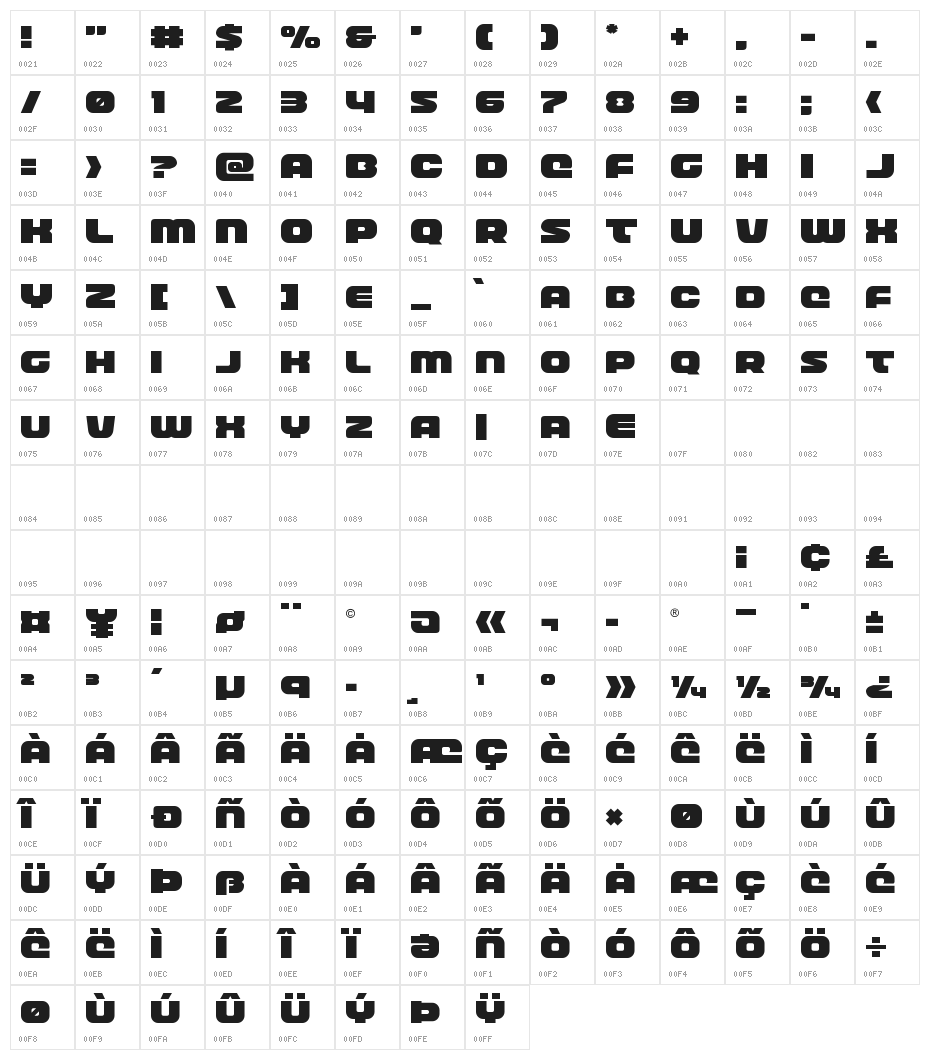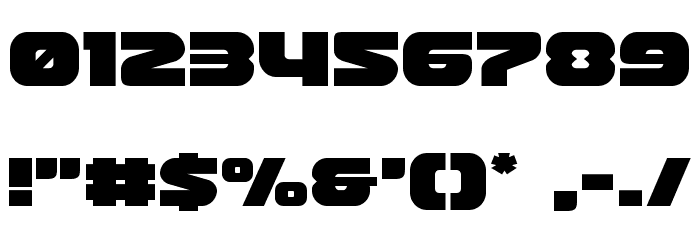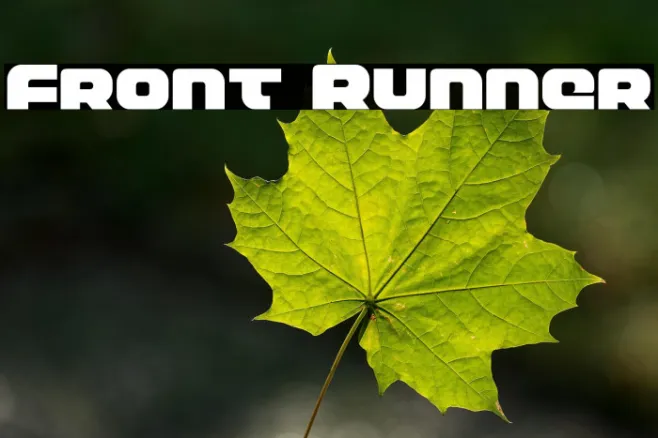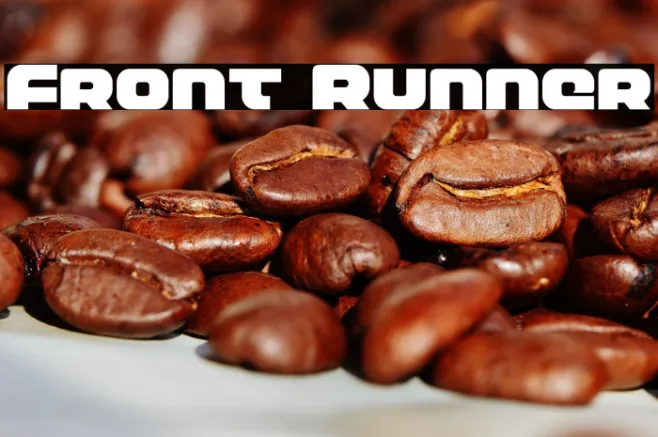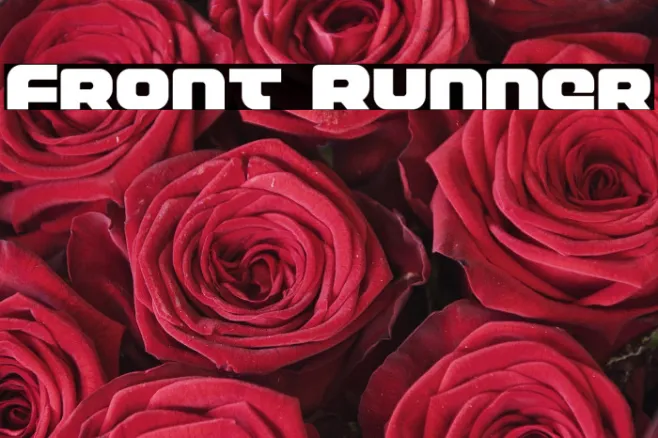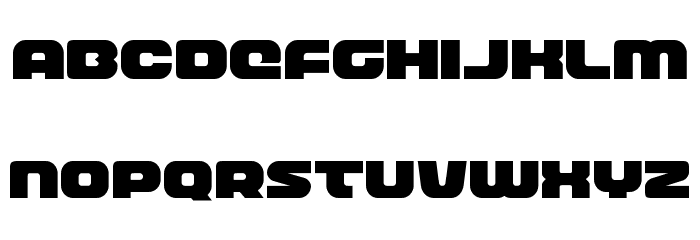
Front Runner Font
Front Runner Description
This bold, geometric font features a strong, modern aesthetic with thick, uniform strokes and a distinct block-like appearance. The characters are wide and evenly spaced, creating a sense of stability and strength. The uppercase letters are particularly striking, with a consistent height and width that enhances readability. The numbers and special characters maintain the same bold style, ensuring a cohesive look across all text. This font's design is both functional and eye-catching, making it suitable for various applications where a strong visual impact is desired.
| Proposed Projects | Ideal for branding, headlines, posters, and any design requiring a strong visual presence. |